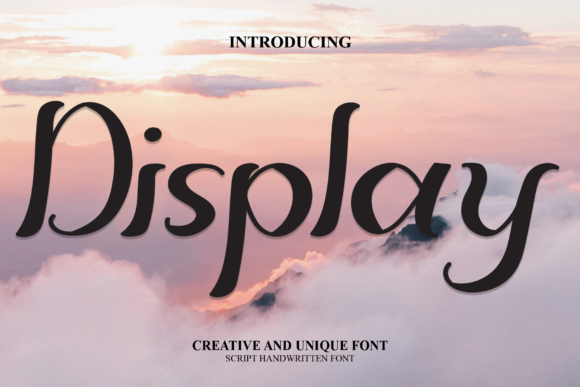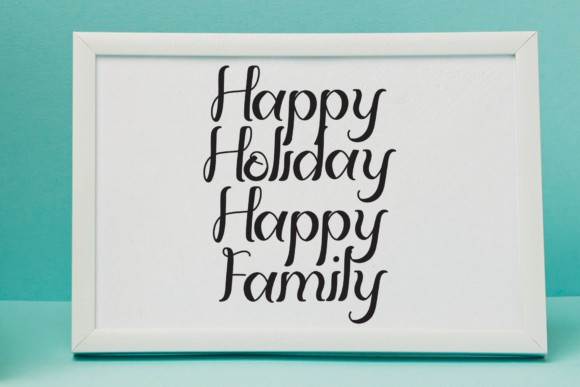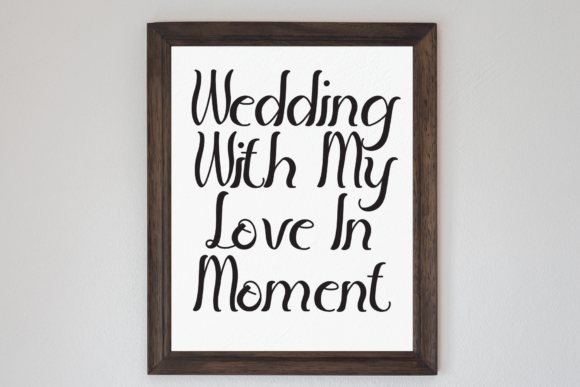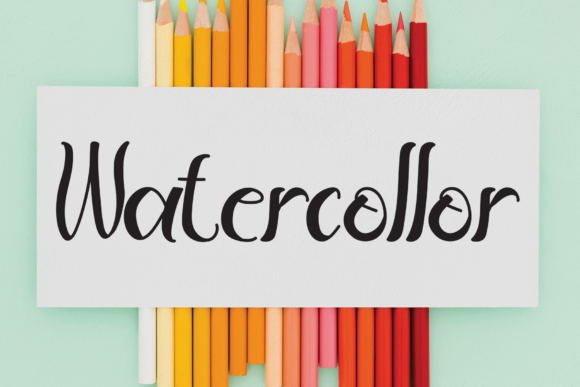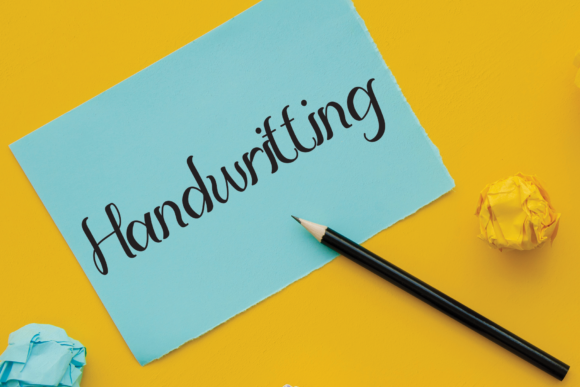
Display Font
About Display Font
Display is a trendy script font with a contemporary atmosphere and impeccable form, inspired by timeless classic calligraphy. Not too thin and not too thick, balanced and varied, this font was designed to enhance the beauty of your projects.